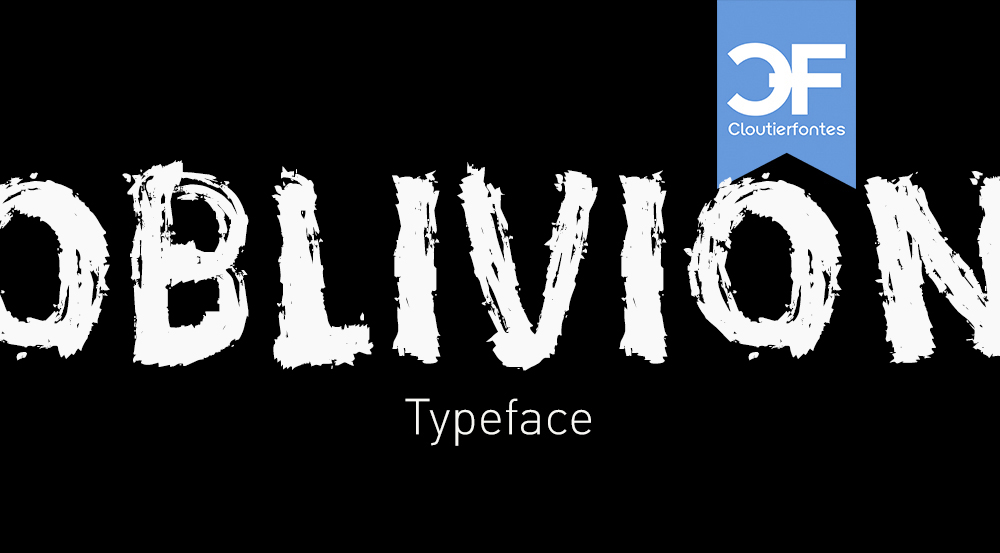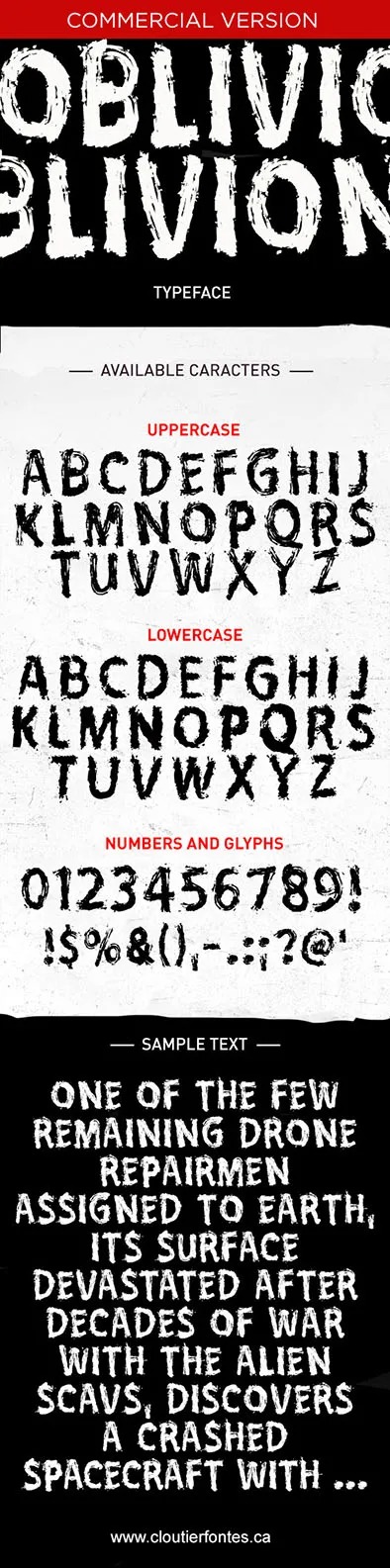
CF Oblivion Brush font
This is an all caps handwritten display font. To give you an extra creative work. This font is good for logo design, Social media, Movie Titles, Books Titles, a short text even a long text letter and good for your secondary text font with sans or serif. Make a stunning work with Feeltrips font.